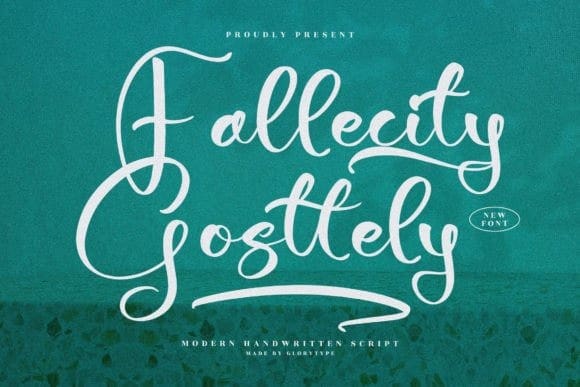
Fallecity Gosttely Font
Fallecity Gosttely Font is a lovely and timeless handwritten font. It is the best choice for creating eye-catching logos, branding, and quotes. Every letter has a unique and beautiful touch, which will make your design come alive!